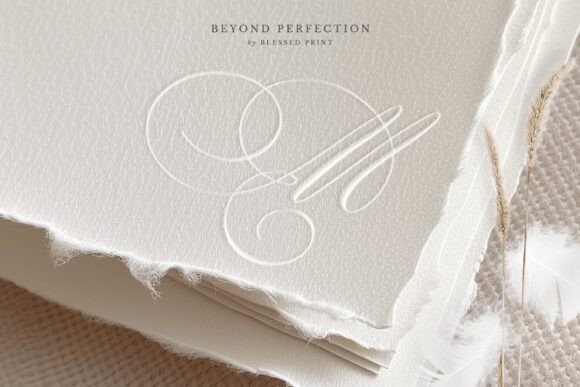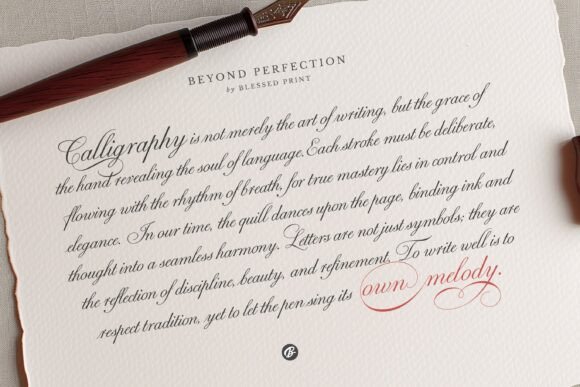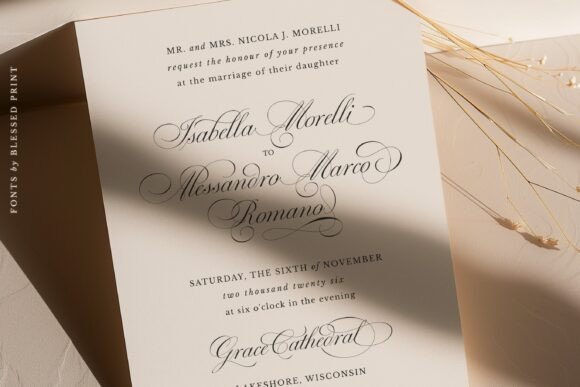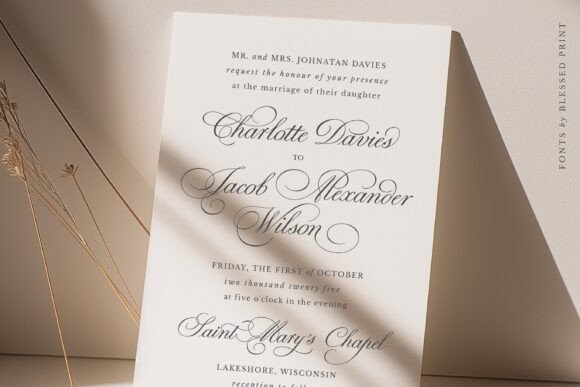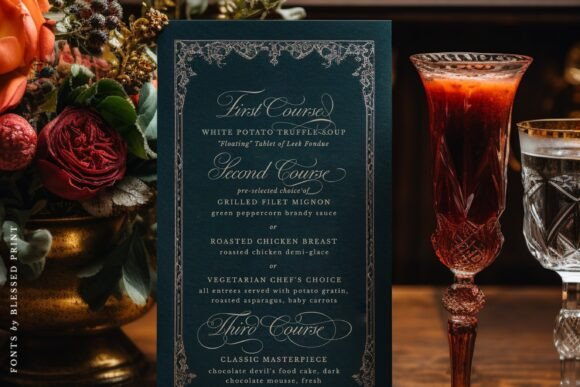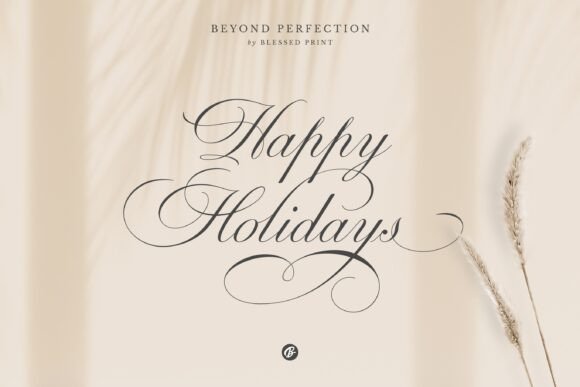
Beyond Perfection Font: Elevate Your Designs with Elegant Script Typography
In the world of typography, few fonts capture the essence of classic calligraphy as beautifully as Beyond Perfection. This refined script font, inspired by the elegant handwriting of Charles Snell, is a masterpiece of modern typography. Designed for those who appreciate the art of traditional calligraphy, Beyond Perfection is perfect for creating stunning wedding invitations, luxury branding, and formal typography.
The Inspiration Behind Beyond Perfection
Beyond Perfection is a tribute to the timeless elegance of Charles Snell’s handwriting. Snell, a renowned calligrapher, was known for his impeccable script style, which has been a benchmark for typographers and calligraphers for centuries. The Beyond Perfection font distills the essence of Snell’s handwriting, transforming it into a digital font that exudes sophistication and refinement.
Key Features of Beyond Perfection Font
Beyond Perfection is more than just a beautiful script font – it’s a comprehensive typographic experience. Here are some of its key features:
- Elegant Letterforms: Beyond Perfection boasts elegant, flowing letterforms that evoke the feeling of traditional calligraphy.
- Seamless Connections: The font features seamless connections between letters, creating a fluid and natural look.
- Over 400 Alternates, Swashes, and Ligatures: With a vast range of alternates, swashes, and ligatures, designers can create unique and customized typography.
Perfect for Wedding Invitations and Luxury Branding
Beyond Perfection is an ideal choice for wedding invitations, luxury branding, and formal typography. Its elegant script style and refined letterforms make it perfect for:
- Wedding Invitations: Create stunning wedding invitations that exude elegance and sophistication.
- Luxury Branding: Elevate your luxury brand with refined typography that communicates exclusivity and high-end quality.
- Formal Typography: Use Beyond Perfection for formal events, such as galas, black-tie events, and formal dinners.
Why Choose Beyond Perfection Font?
With so many fonts available, why choose Beyond Perfection? Here are a few compelling reasons:
- Unique and Distinctive: Beyond Perfection offers a unique and distinctive typographic experience that sets it apart from other script fonts.
- Highly Versatile: With over 400 alternates, swashes, and ligatures, designers can experiment with different typographic styles and create customized designs.
- Timeless Elegance: Beyond Perfection’s classic calligraphy style ensures that it will remain a timeless and elegant choice for years to come.
Tips for Using Beyond Perfection Font
To get the most out of Beyond Perfection, here are some tips for using the font:
- Experiment with Alternates and Swashes: Take advantage of the font’s extensive range of alternates and swashes to create unique typographic styles.
- Pair with Neutral Fonts: Pair Beyond Perfection with neutral fonts to create a striking contrast and add visual interest to your design.
- Use for Headlines and Titles: Use Beyond Perfection for headlines and titles to add a touch of elegance and sophistication.
In conclusion, Beyond Perfection is a stunning script font that offers a unique and distinctive typographic experience. With its elegant letterforms, seamless connections, and extensive range of alternates and swashes, it’s perfect for wedding invitations, luxury branding, and formal typography. Whether you’re a designer or crafter, Beyond Perfection is an excellent choice for anyone looking to elevate their designs with refined and sophisticated typography.